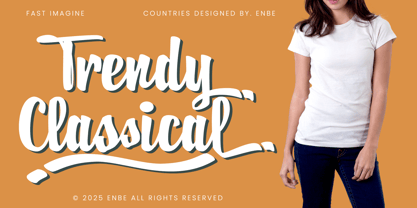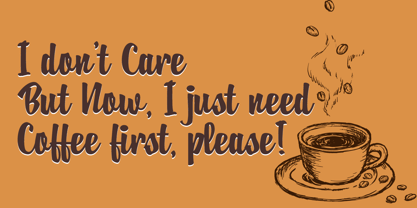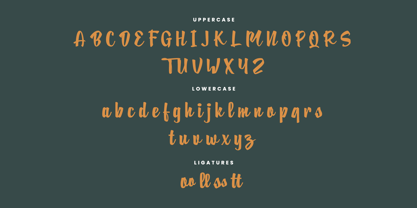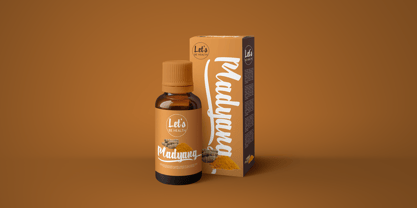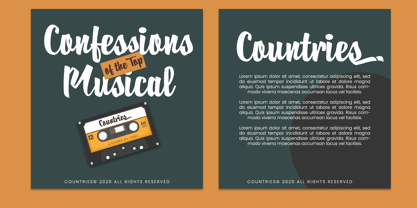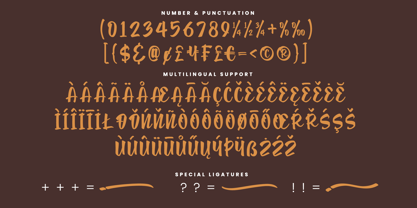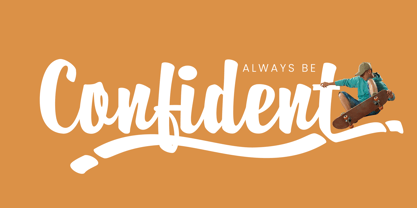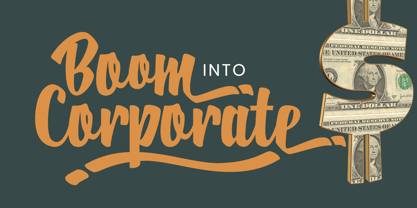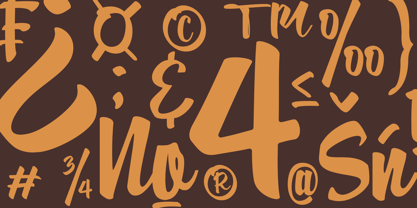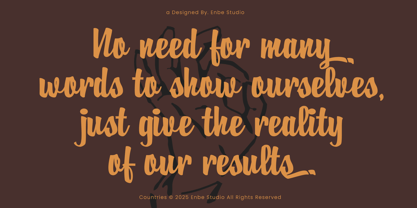
Countries
by Enbe Studio
The Countries Font Family was designed by Sarwo Edhi Prayitno and published by Enbe Studio. Countries contains 1 styles.
Countries is a bold, eye-catching script font designed to bring dynamic style to any project. Perfect for logos, signage, invitations, social media posts, and more, this font offers the versatility and elegance you need.
This font comes complete with alternate characters and ligatures, allowing for even more customization and enhancing the fluidity of your design. With a variety of unique glyphs and smooth connections, Countries ensures your text stands out with a professional, polished look.
Additionally, it supports multiple languages, making it an ideal choice for international projects. From bold statements to delicate accents, Countries is the perfect script font to elevate any creative venture.